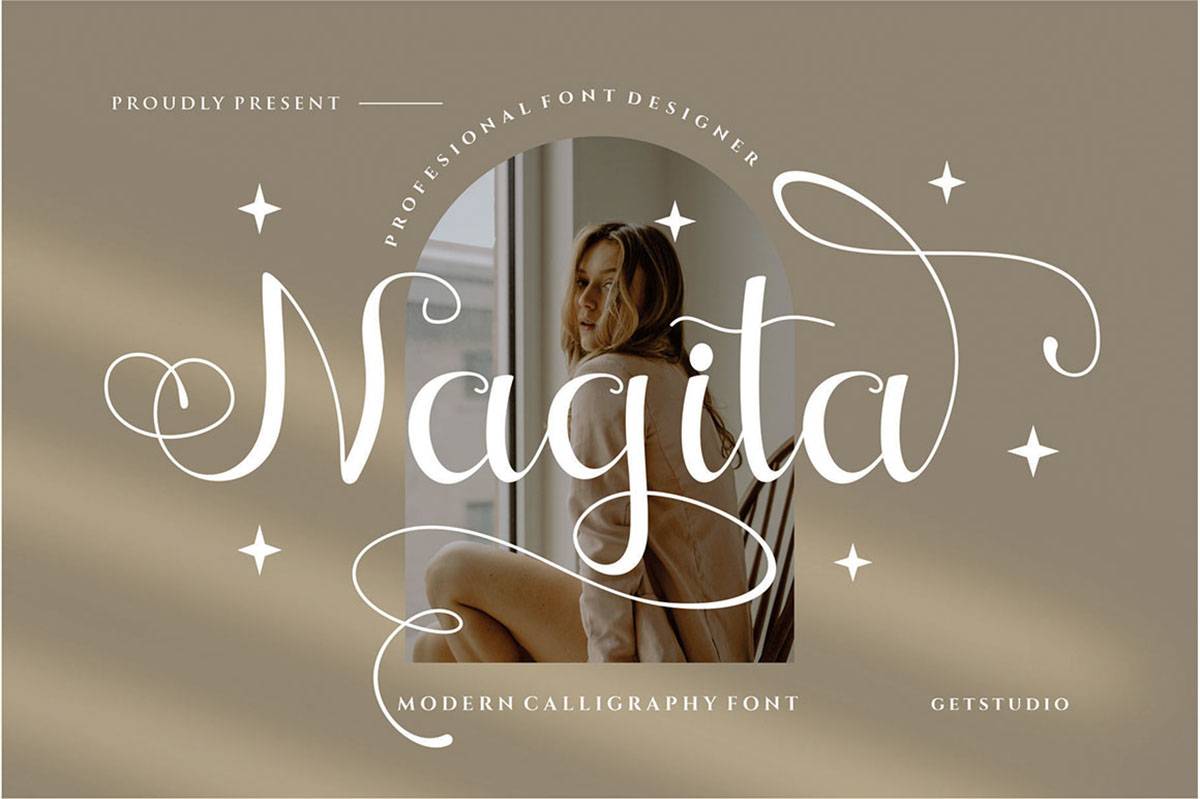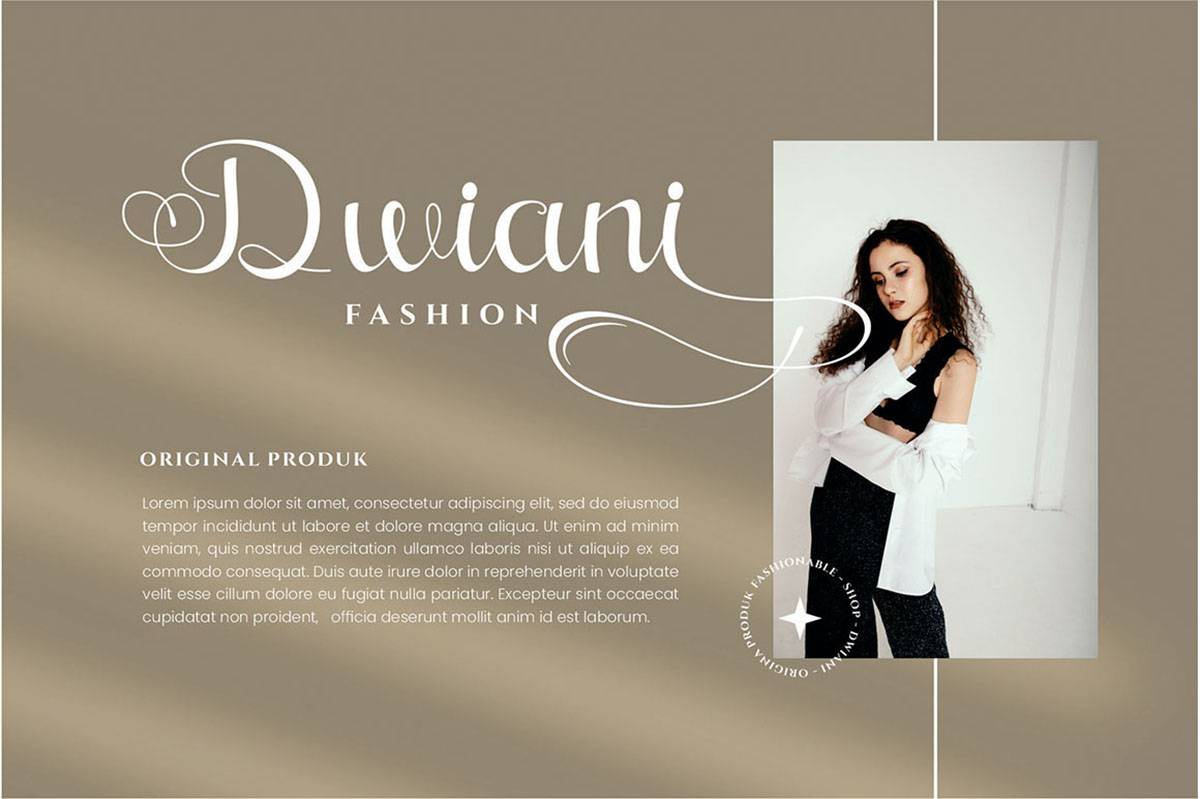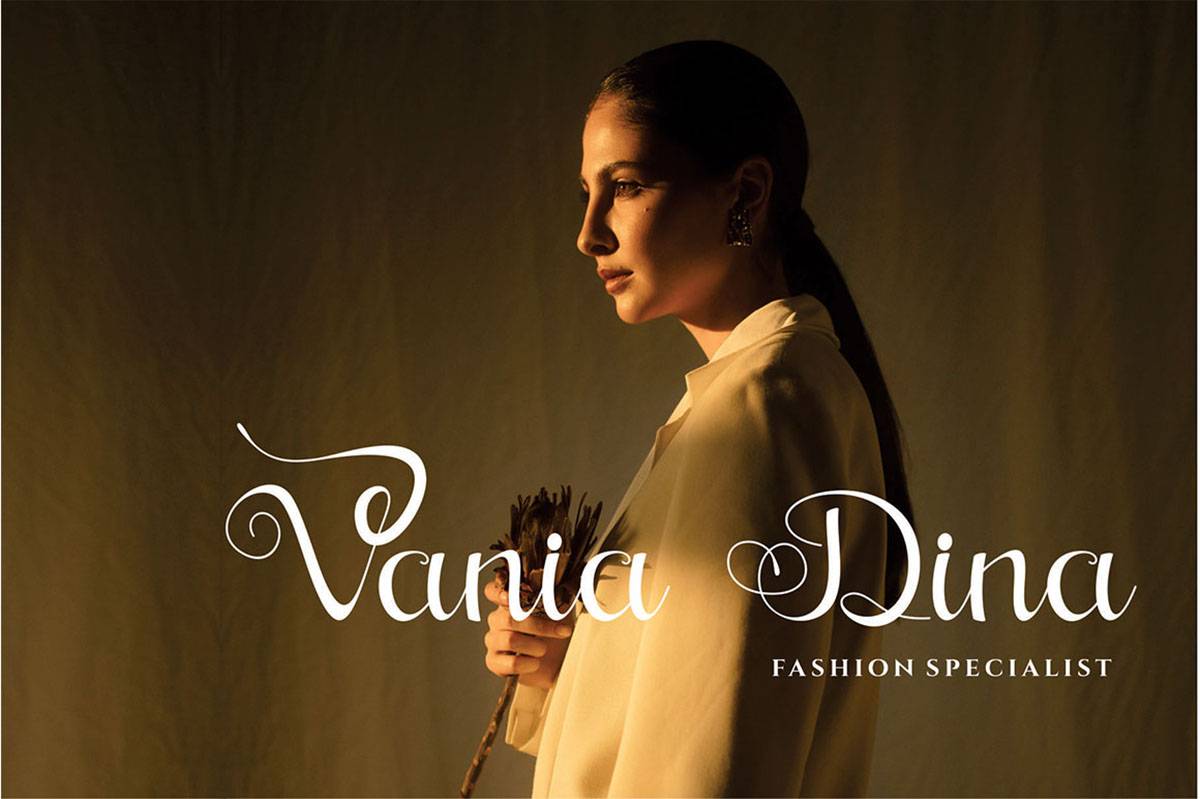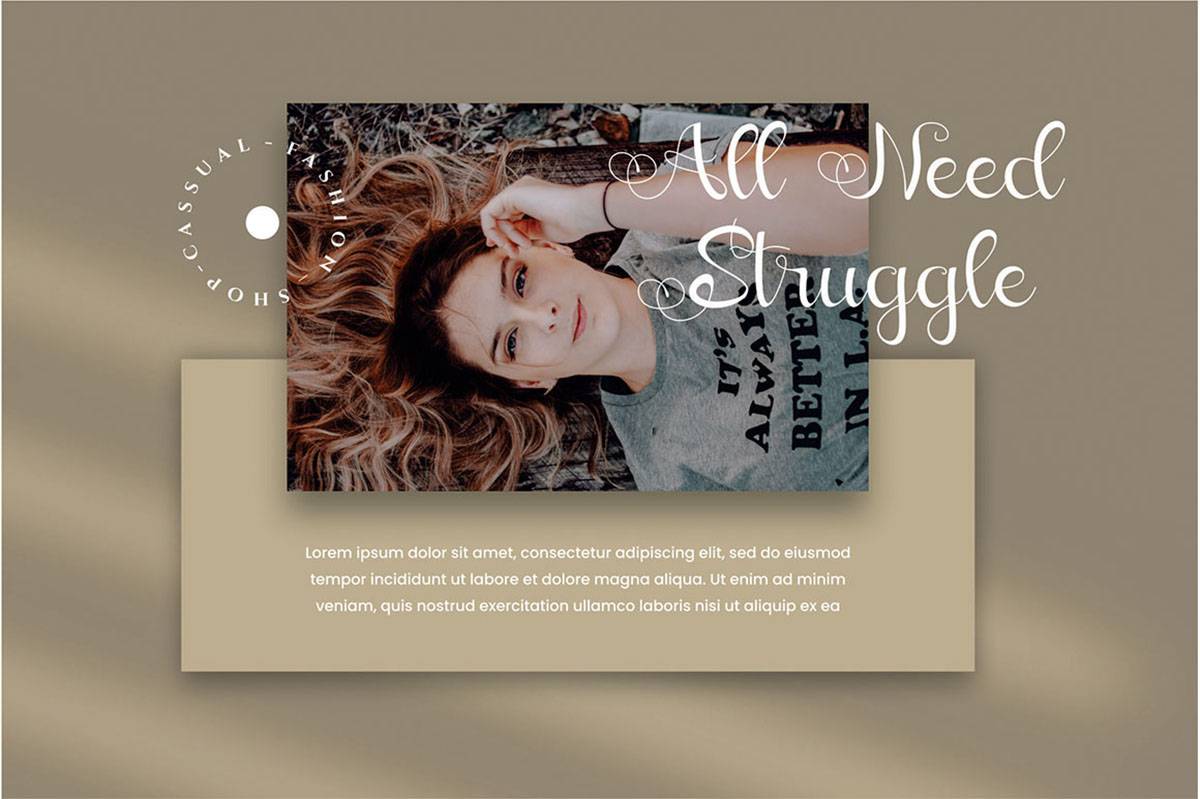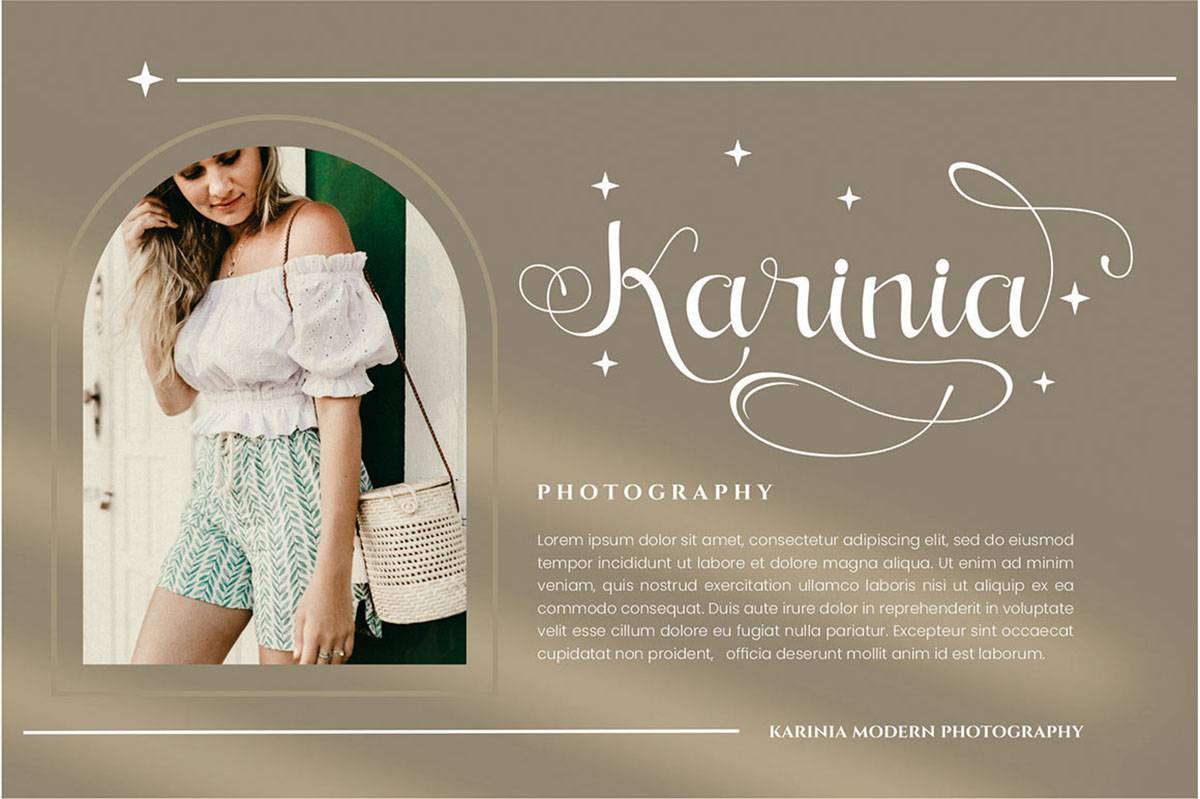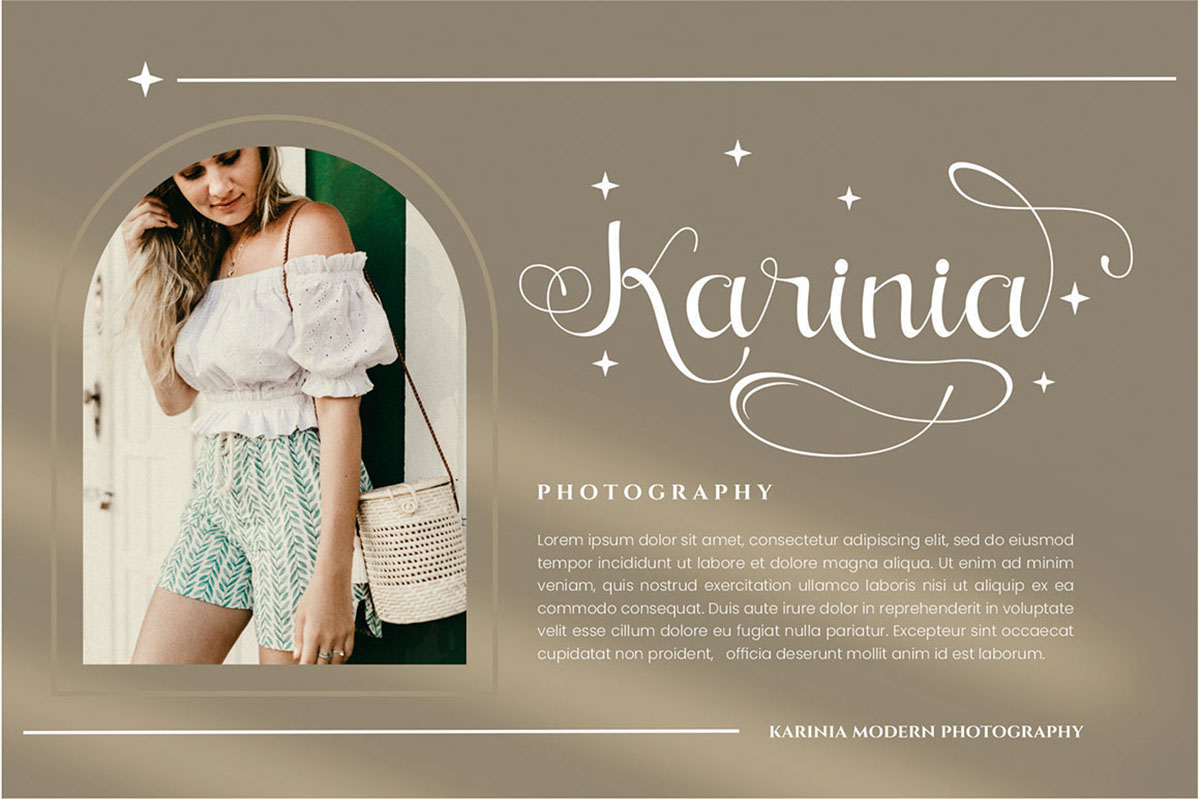
Nagita Font
Introducing Nagita Font, a delicate and gracefully flowing script font. Infuse romance and charm into your love letters, wedding invitations, or cherished design concepts with this lovely font, and be amazed by the enchanting results it brings to each creation. This free typeface was designed by a talented Sigit Sigit. If you like it don’t forget to check out the full version.